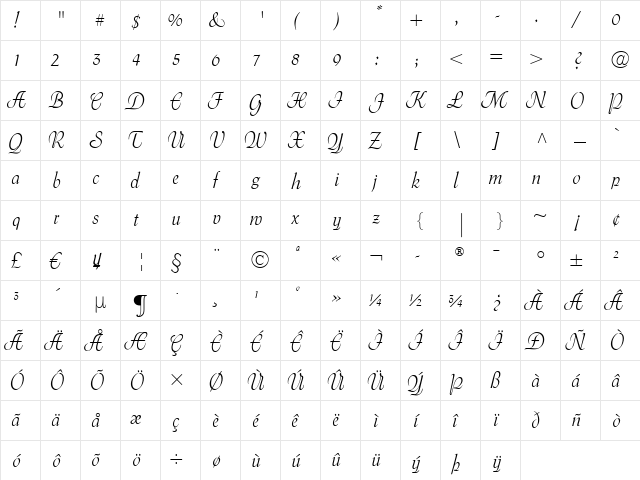
LTGavotte Regular
Design Context for LTGavotte Typeface
LTGavotte takes a measured approach to typography — its balanced proportions and neutral character make it a reliable workhorse for both digital and print work.
Pro Tip: Use LTGavotte in both headline and body roles to test its range before committing to a single application.